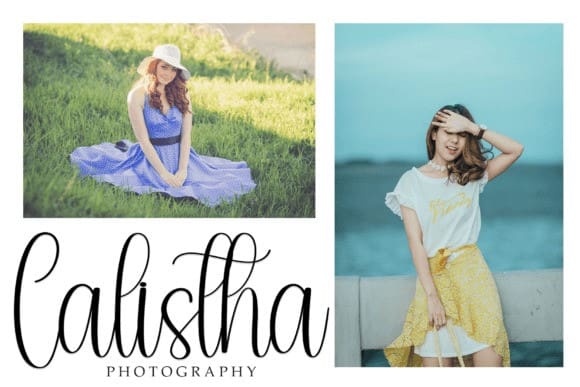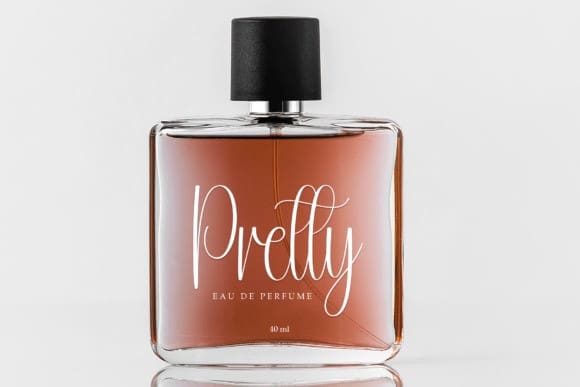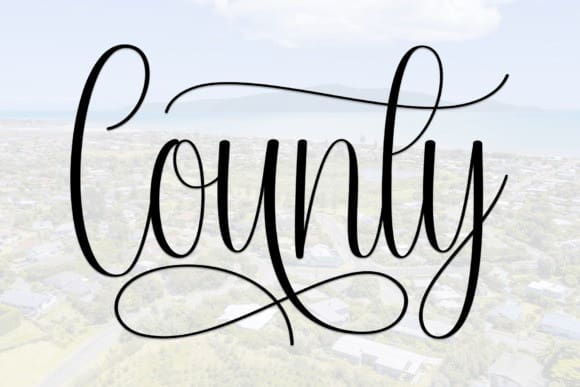
County Script Font
County Script Font is a sweet and friendly handwritten font. Cute and fun, this font is ideal for writing wedding invitations, cards, or any other design that might need a lovely touch!